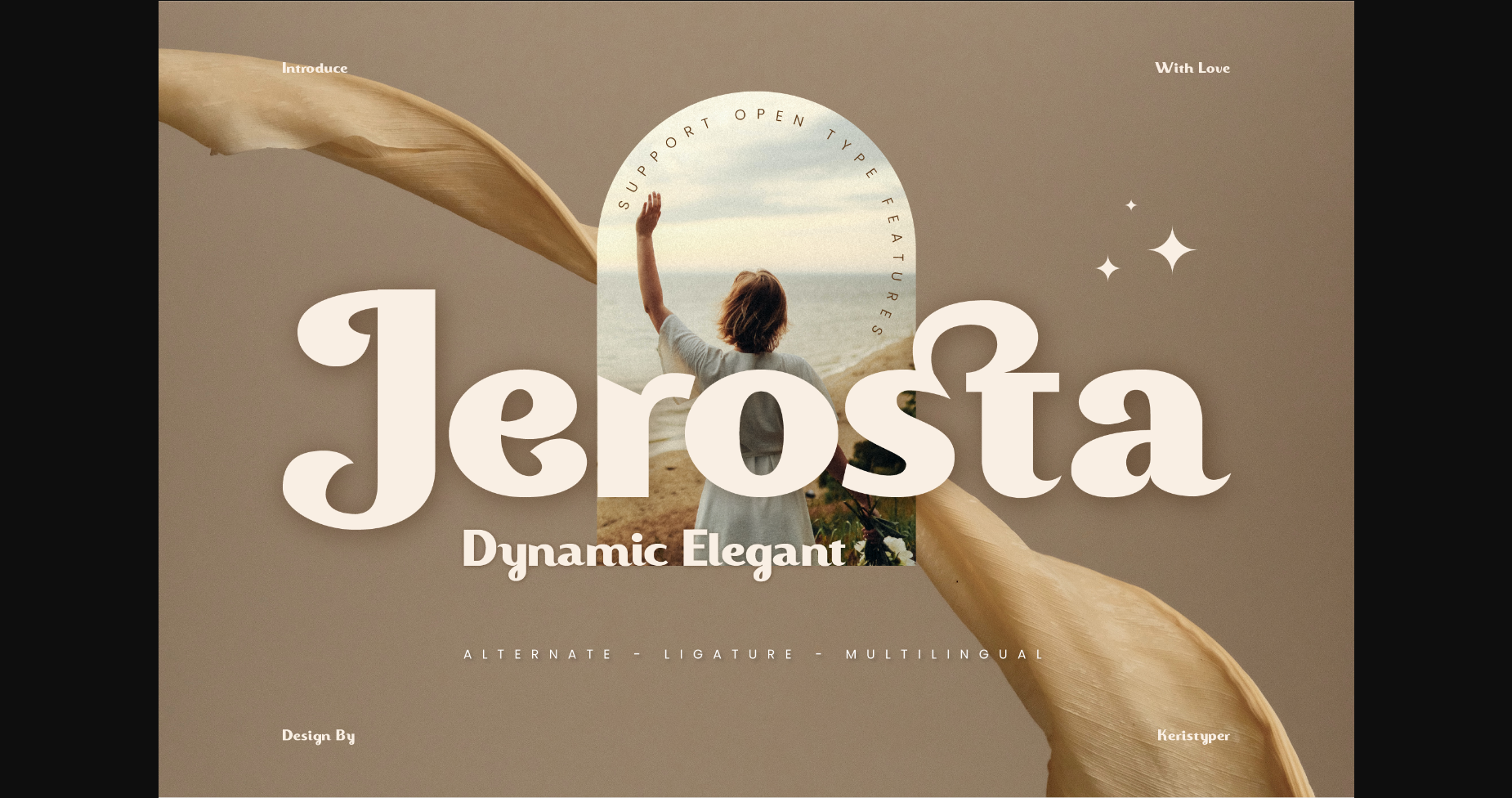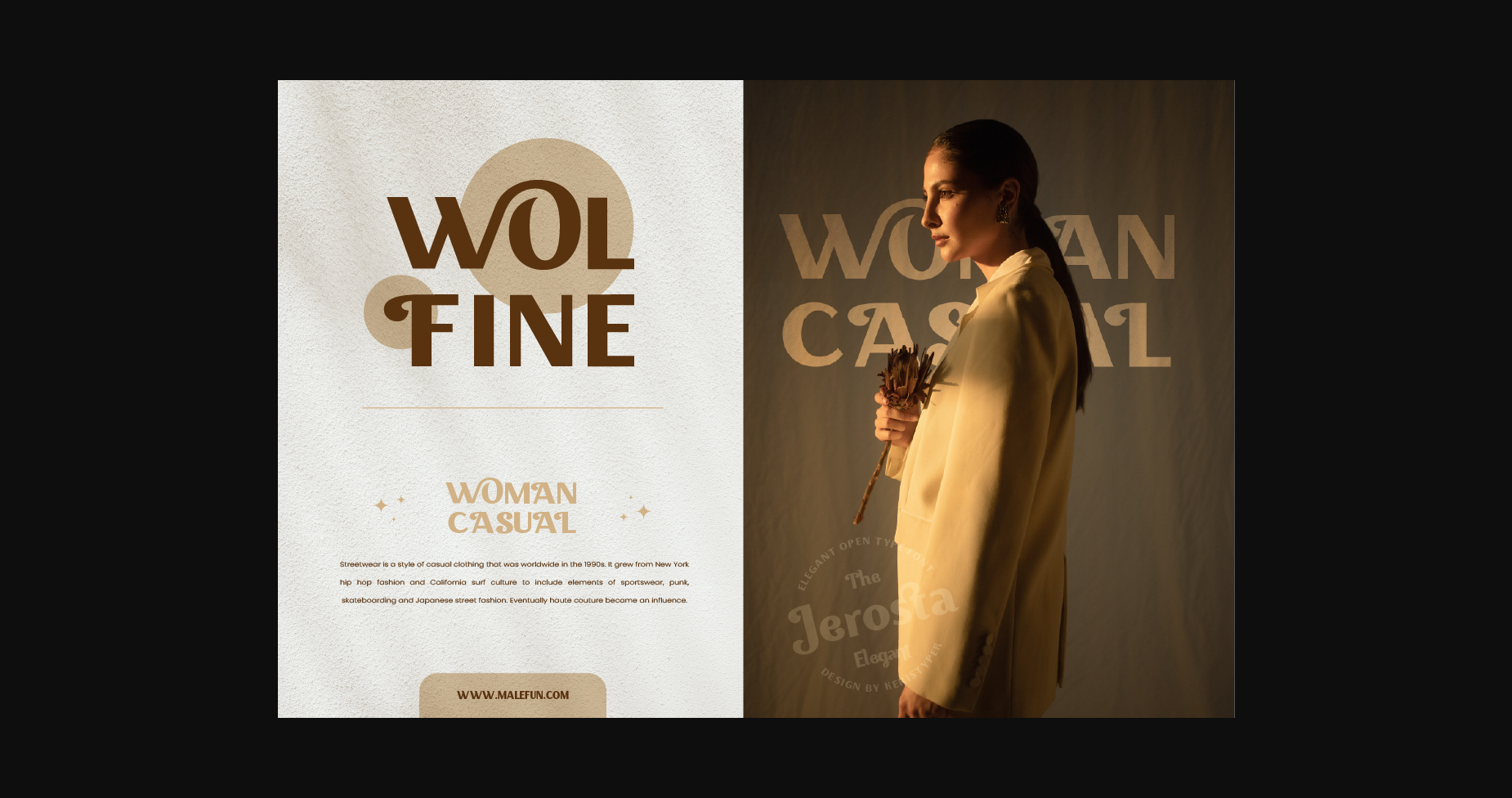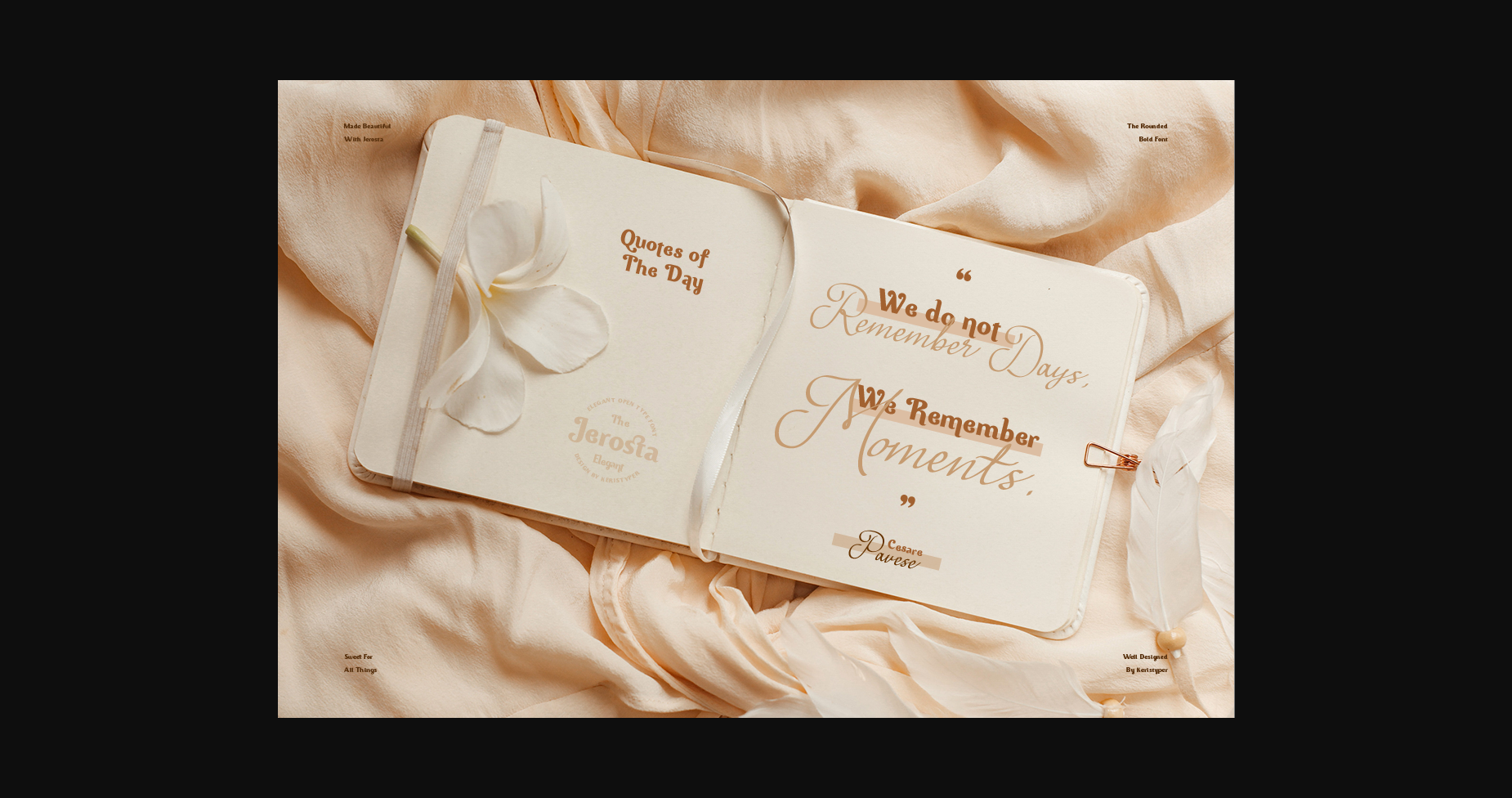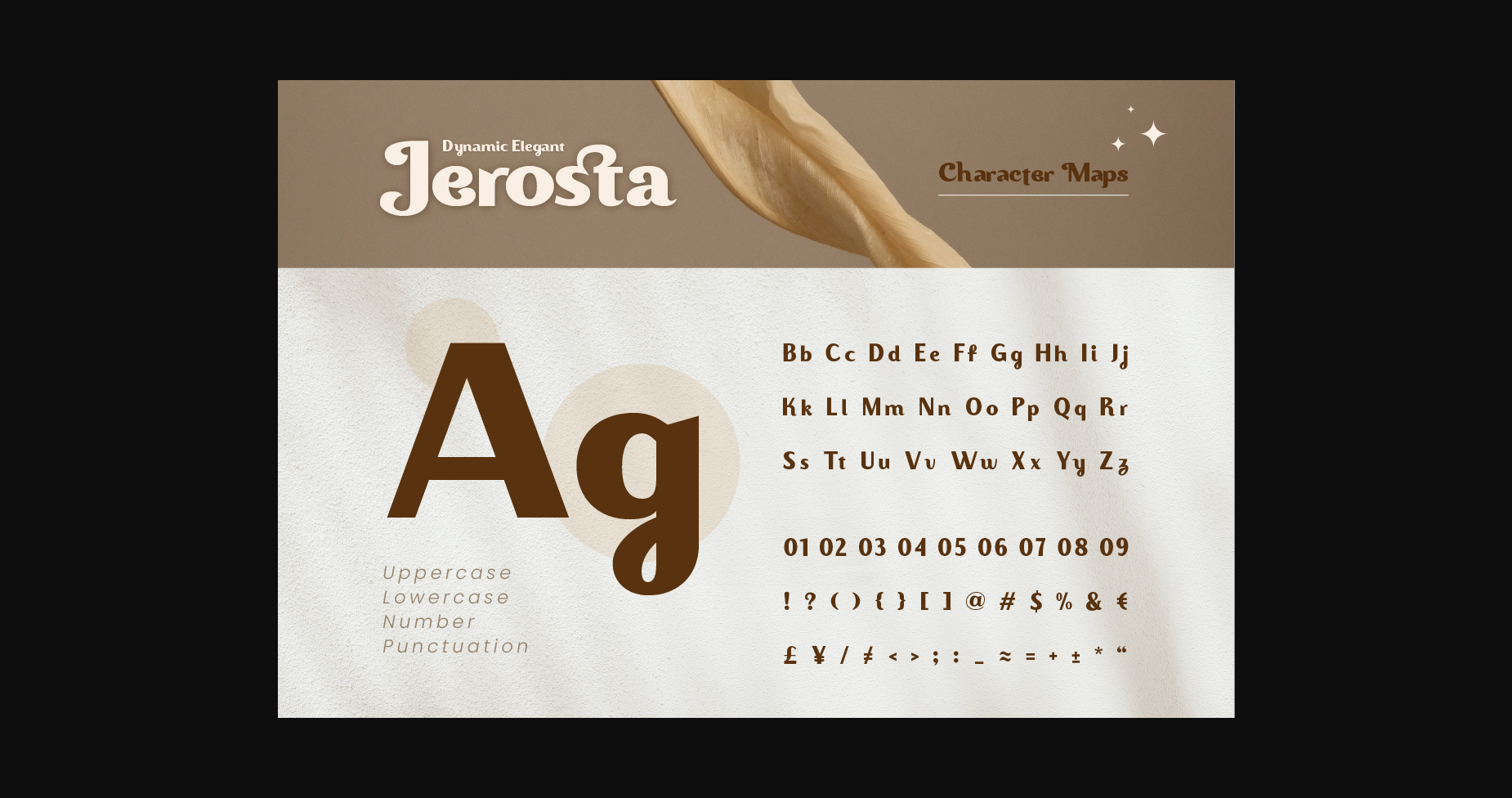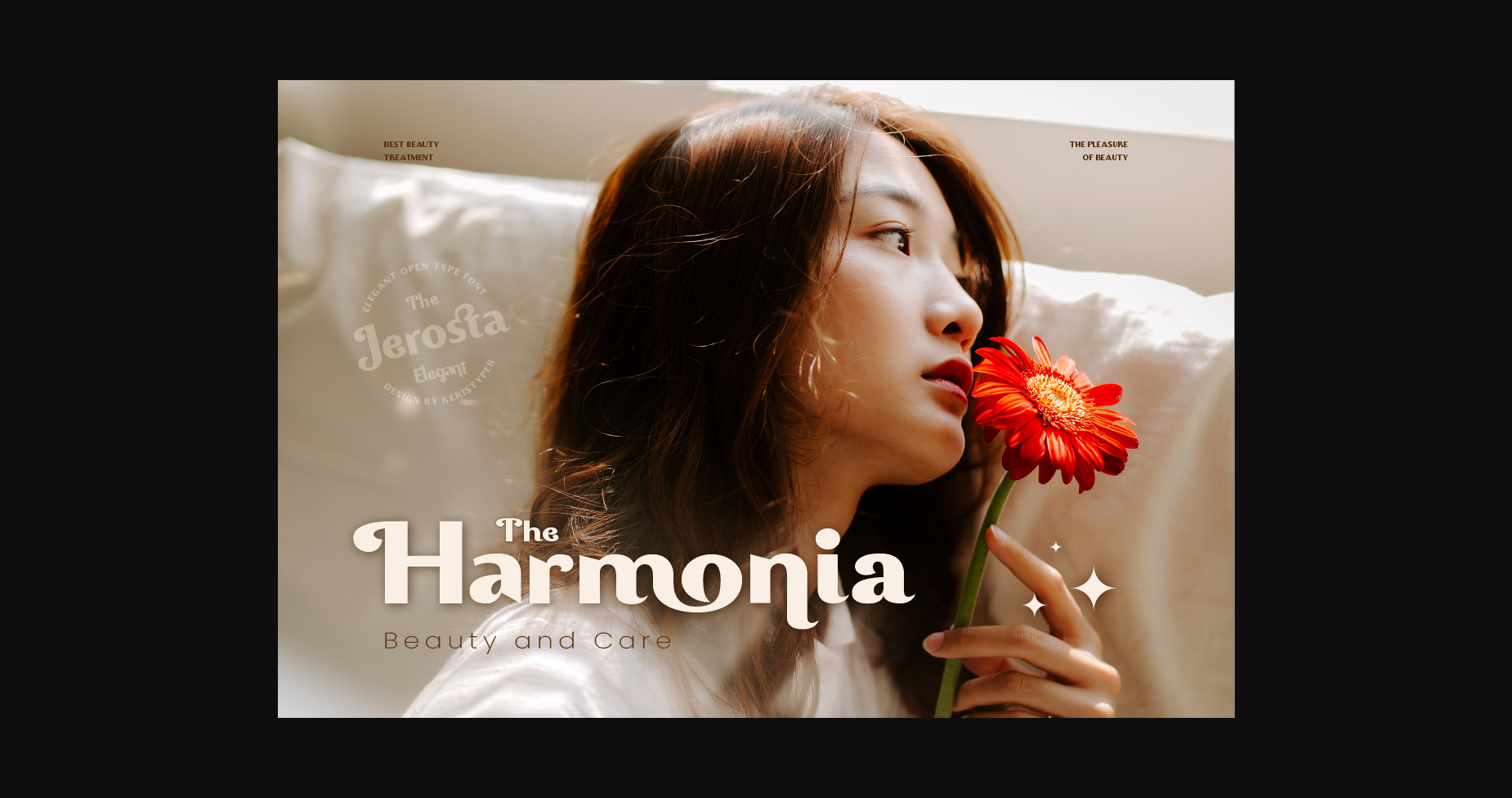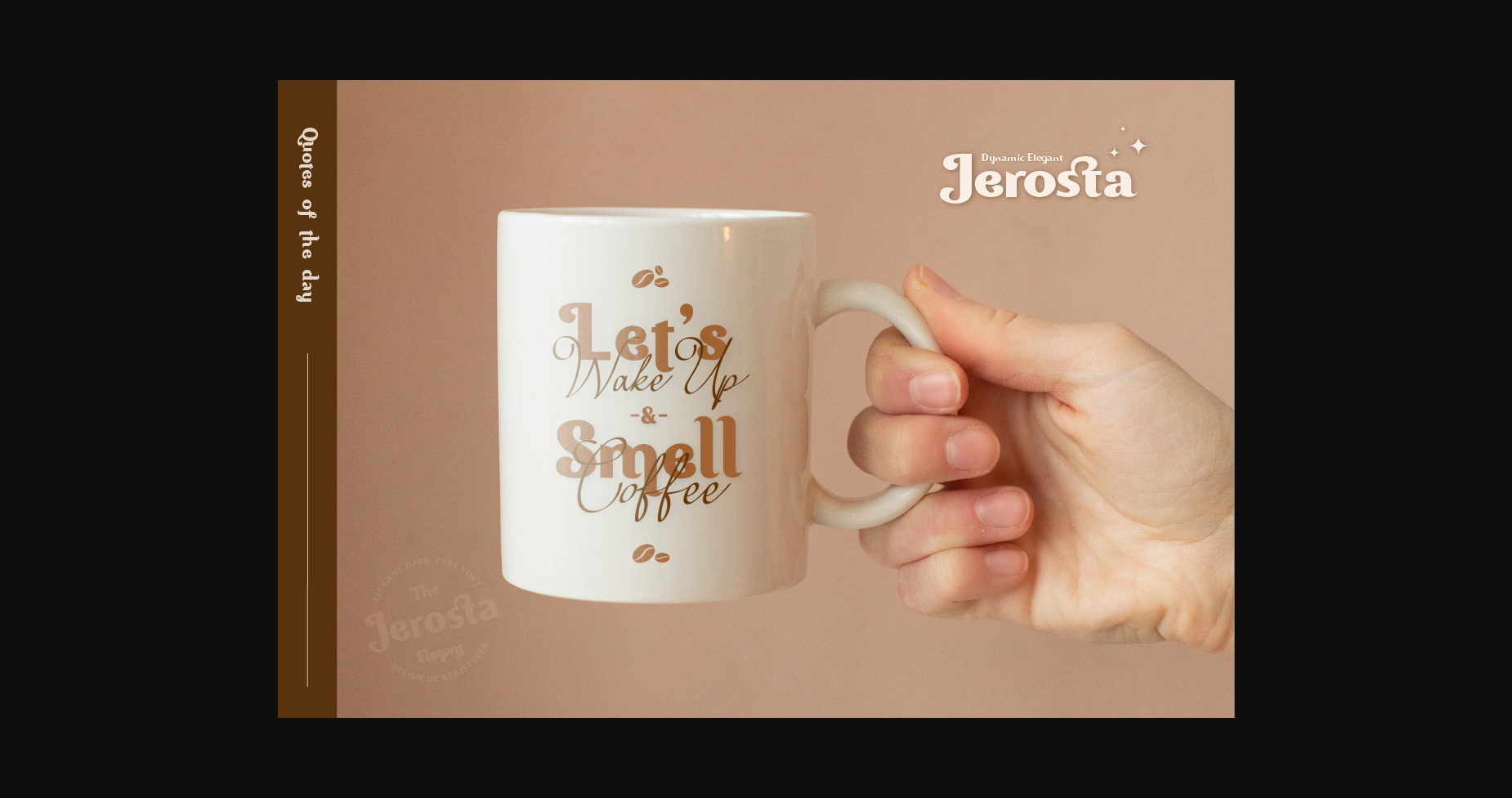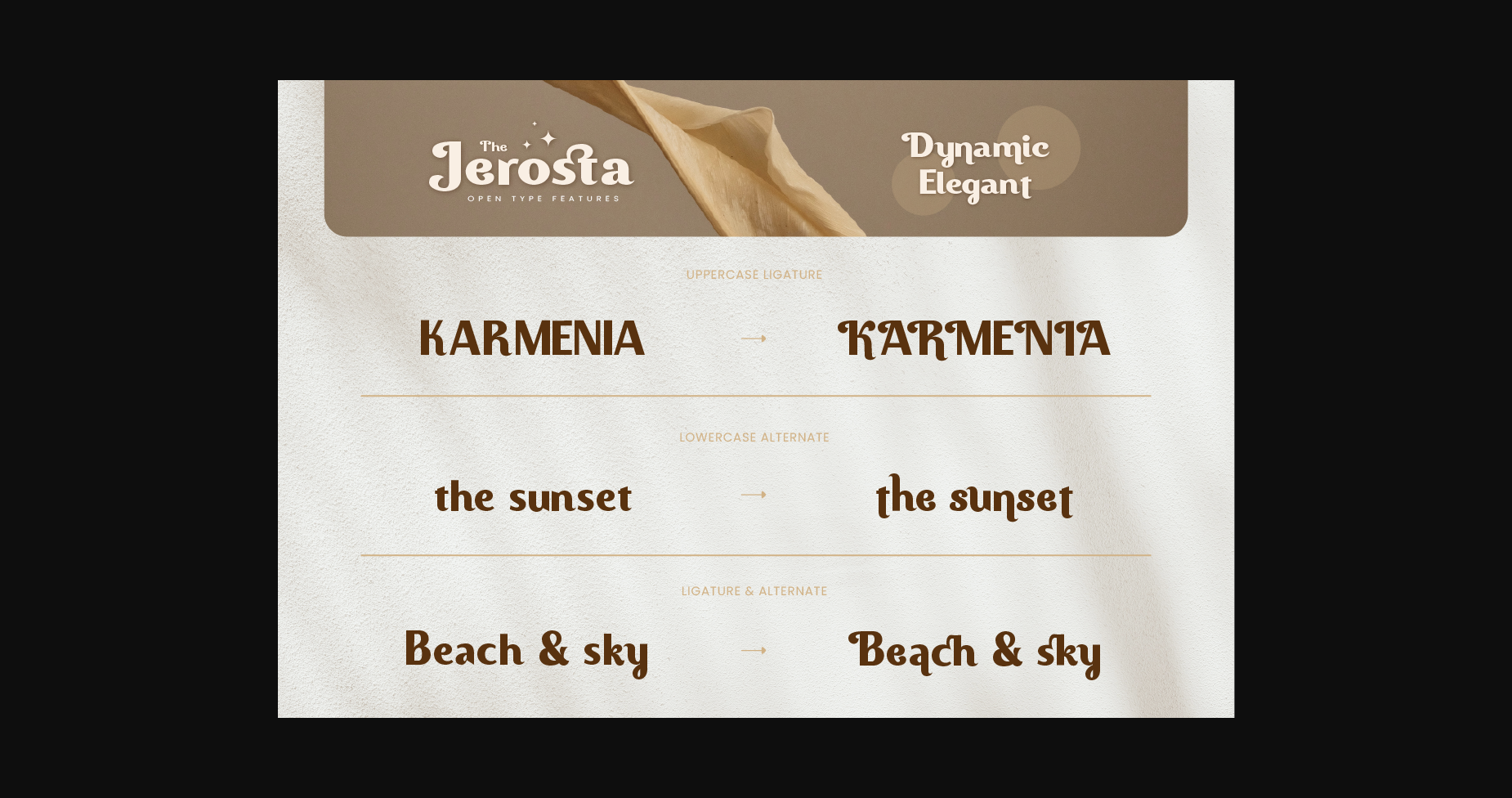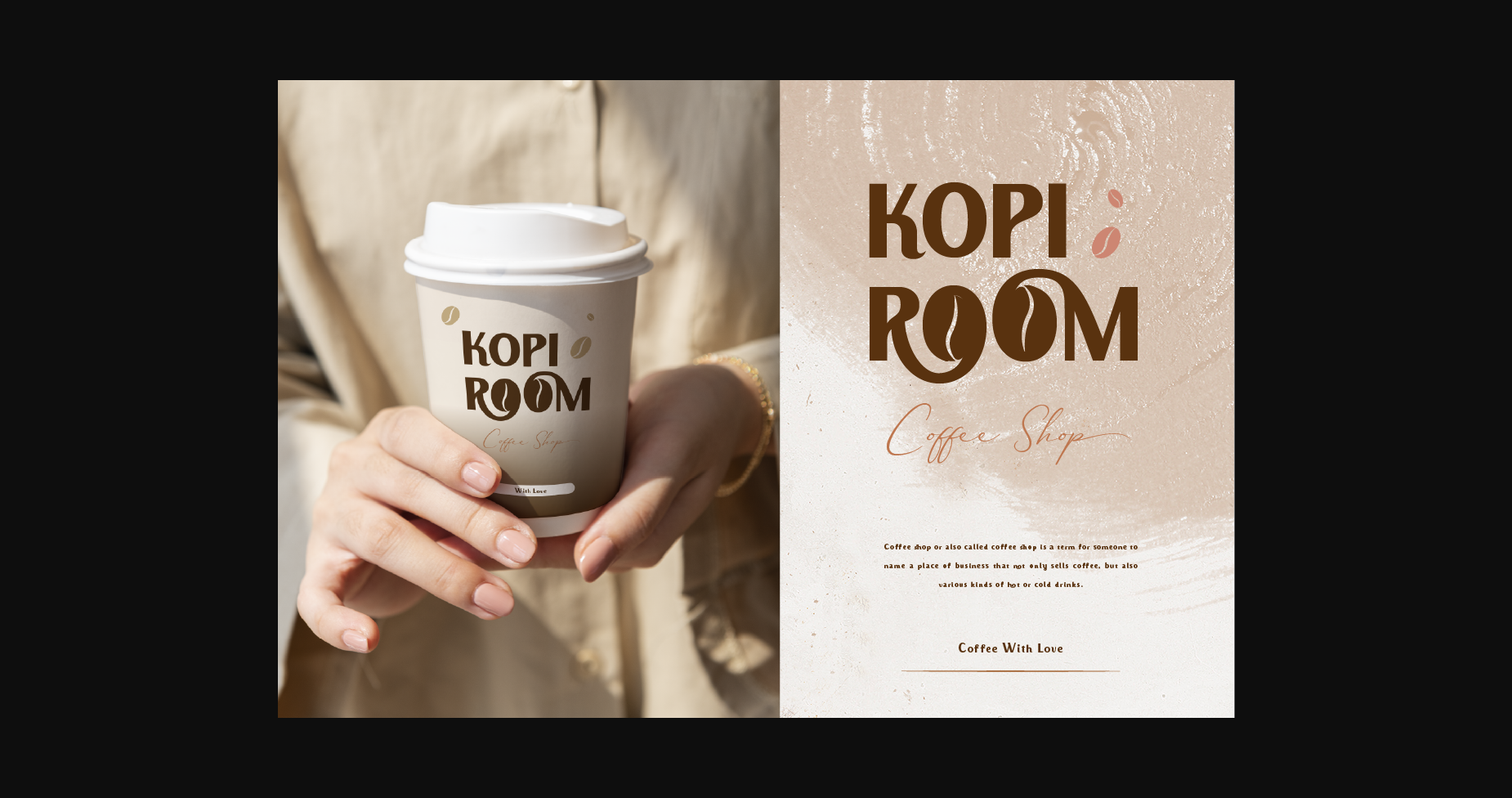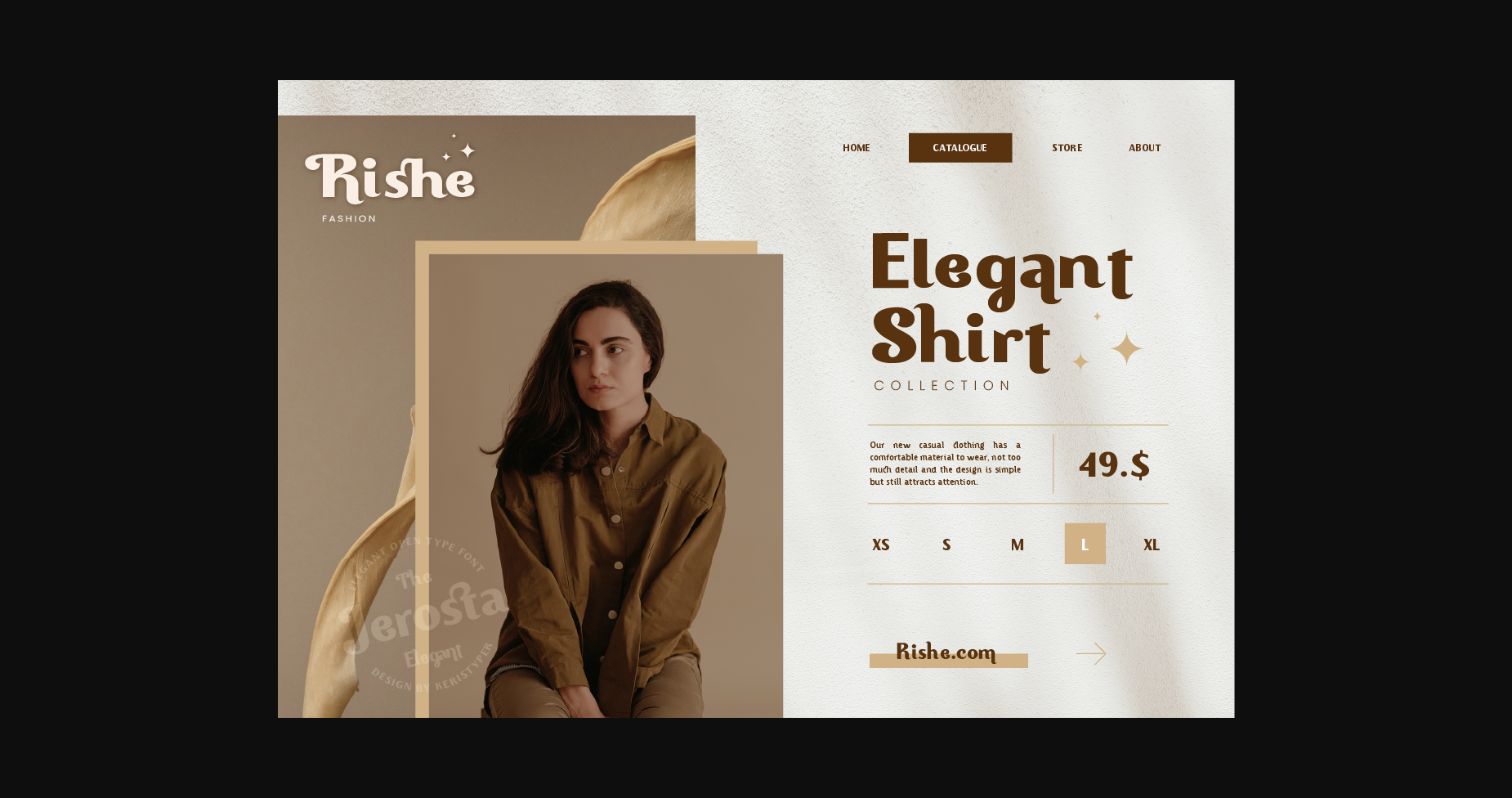
Jerosta Font
About Jerosta Font
Jerosta is a modern sans serif font with a dynamic and elegant style. Its clean and geometric lines give it a contemporary look, while its unique letterforms add a touch of sophistication. With its versatile design, Jerosta can be used for a wide range of applications, from branding to editorial design and beyond.